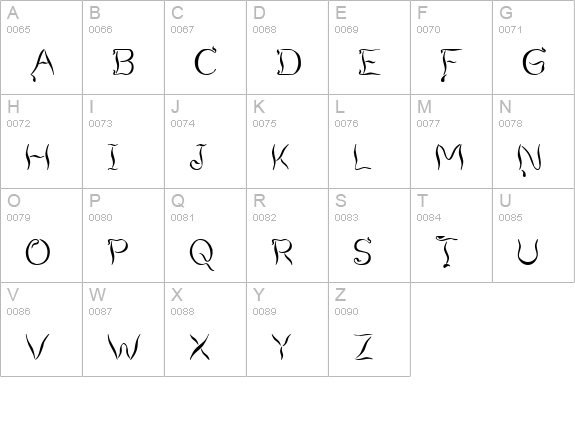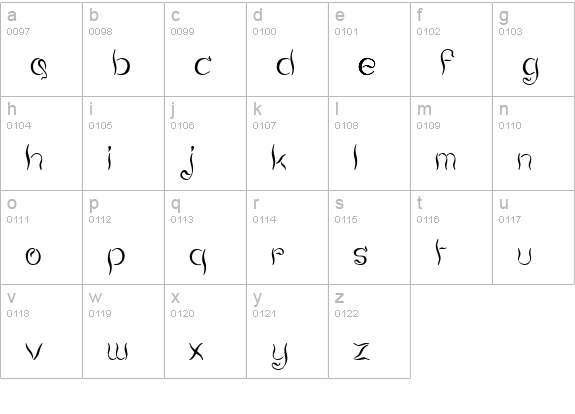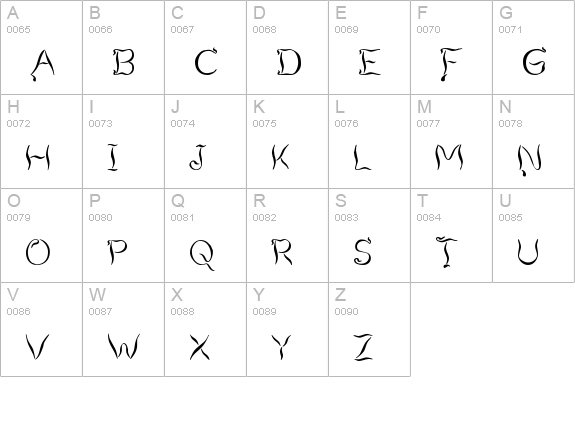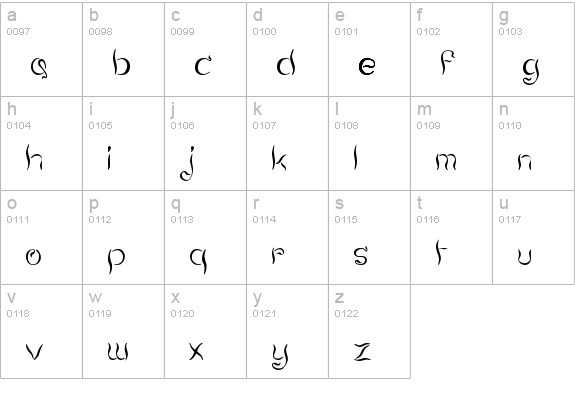
Smoking Tequila Font Details
Introducing the captivating and edgy Smoking Tequila font - a revolutionary typeface that will add a touch of distinctiveness to your designs. With its bold and sharp letterforms, this font exudes a sense of rebelliousness and modernity, making it perfect for projects that require a unique and eye-catching appearance. What sets Smoking Tequila apart from other fonts is not only its impeccable design, but also its incredible versatility. Whether you are designing a logo, a poster, a website, or even a tattoo, this font will elevate your work to new heights. Its carefully crafted letterforms ensure legibility and readability, while its stylish and unconventional details add a touch of artistic flair. But that's not all - Smoking Tequila is not only visually stunning, it is also freely available to download at FontsMarket.com. Yes, you read that right - this extraordinary font can be yours at no cost. So why wait? Unleash your creativity and download Smoking Tequila font today to infuse your designs with a dash of rebellious spirit. Don't settle for the ordinary - make a statement with Smoking Tequila font. With its striking aesthetics and remarkable versatility, this font is bound to become your go-to choice for all your design needs. Get your hands on this exceptional typeface now, and let your imagination run wild. Remember, Smoking Tequila font is freely available to download at FontsMarket.com, so don't miss out on this incredible opportunity to enhance your designs with a touch of boldness and sophistication.